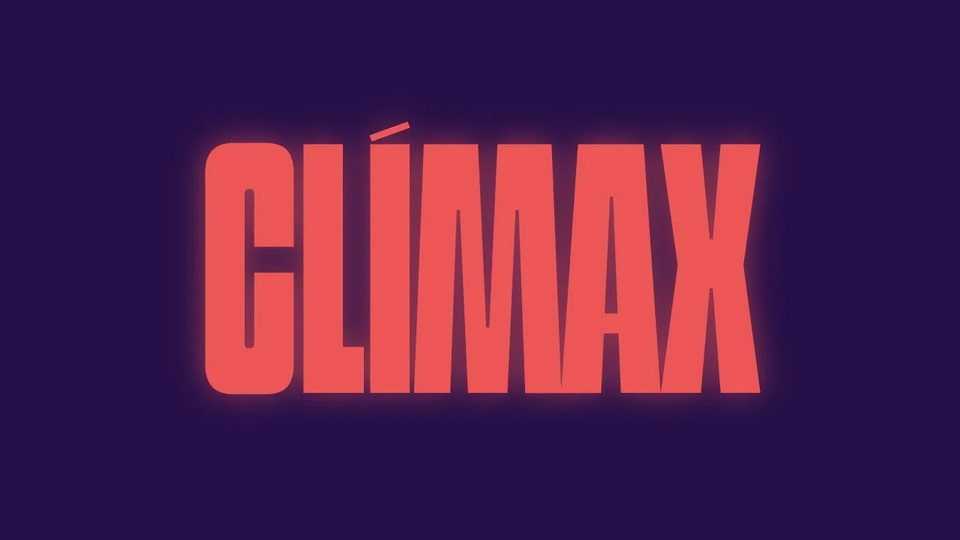
Download CLÍMAX font, a variable contrast sans-serif typeface, inspired by fictional audiovisual productions with its striking geometric forms and dynamic letterforms.
Designer: Replicante